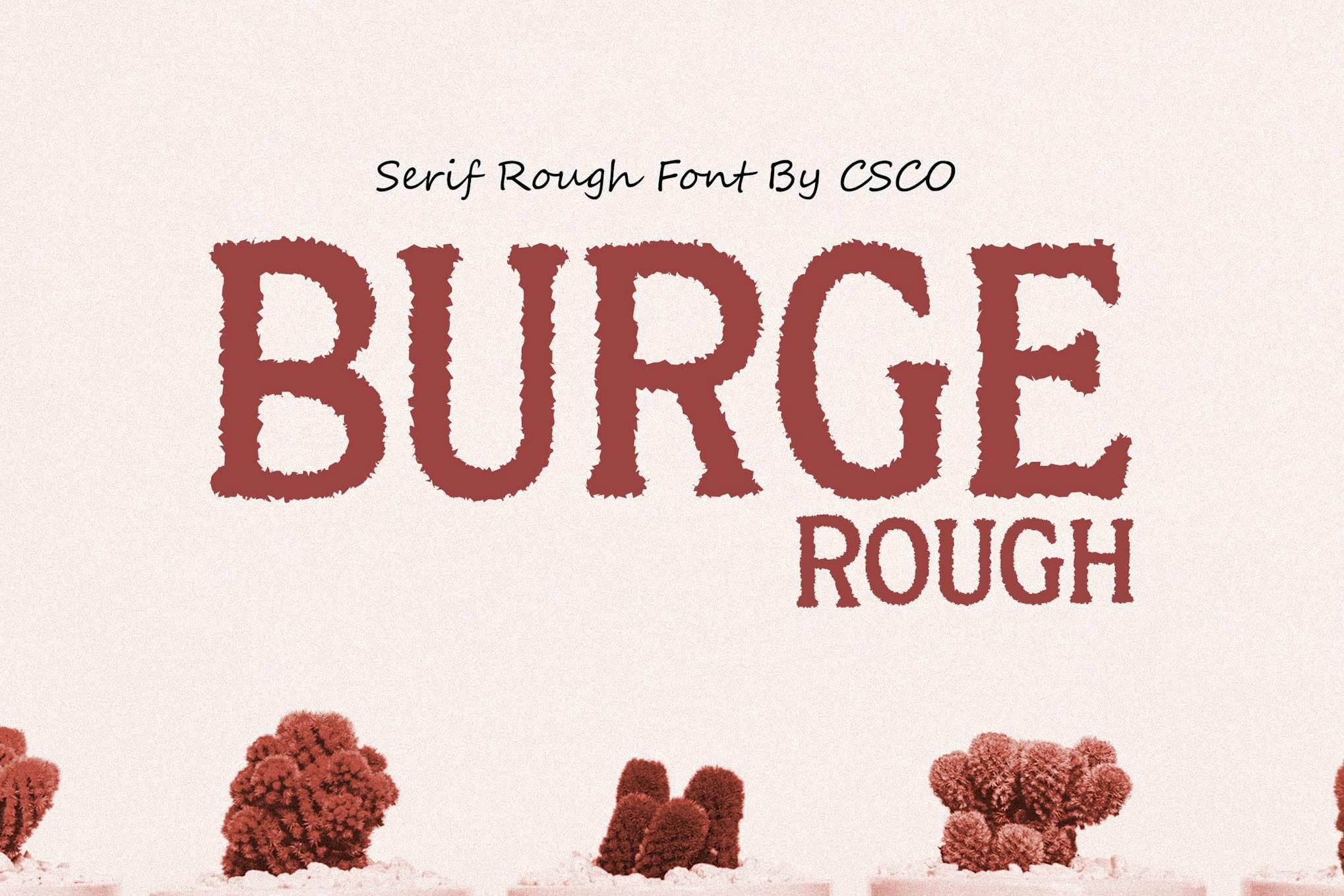
Burge Rough Font
Perfect for vintage branding, poster designs, apparel prints, packaging, and social media visuals.
The Burge Rough Font excites designers with its rugged texture, bold brush strokes, and distressed look that adds a handcrafted, authentic edge to any creative project.
The Burge Rough Font Free Download is a striking typeface designed to infuse your designs with a raw, vintage character. Its rough, textured edges and dynamic strokes make it ideal for projects that require a gritty, bold aesthetic. Whether you’re designing posters, apparel graphics, or packaging, Burge Rough brings personality and impact.
One of the key features of Burge Rough Font is its perfect balance between texture and readability. Despite its distressed style, it maintains clarity and works well for headlines, logos, and display text, ensuring your message is clear and powerful.
In branding, Burge Rough conveys strength, authenticity, and creativity. It pairs beautifully with earthy tones, vintage textures, and handmade illustrations, helping brands build genuine connections with their audience.
For digital use, this font enhances social media posts, website banners, and marketing materials with its bold, textured style. Its unique look ensures your digital content stands out with character and flair.